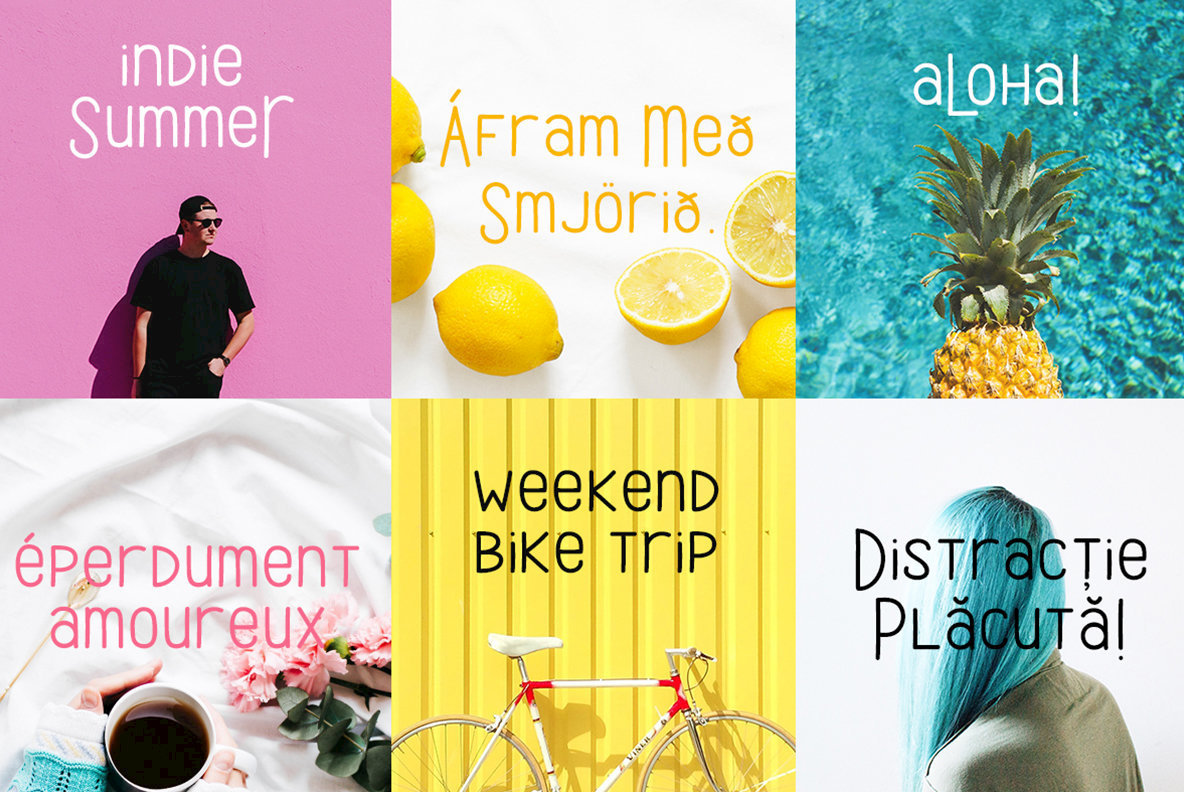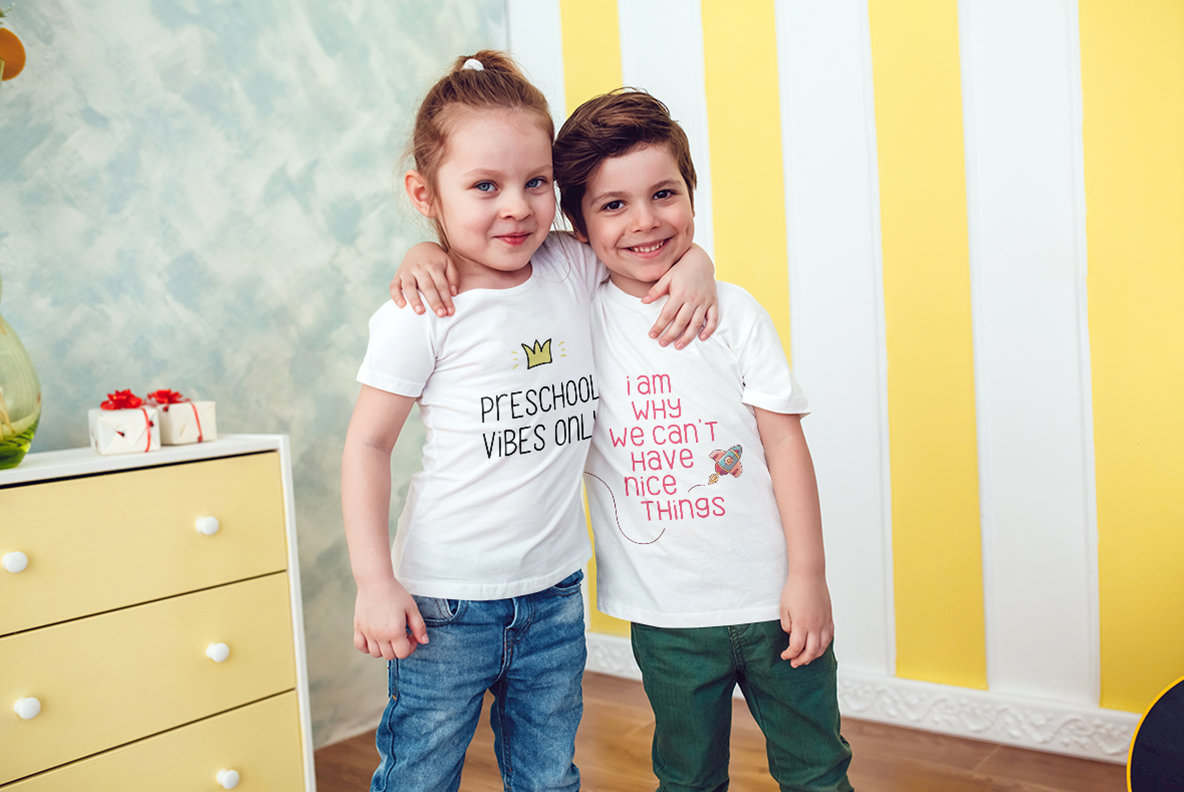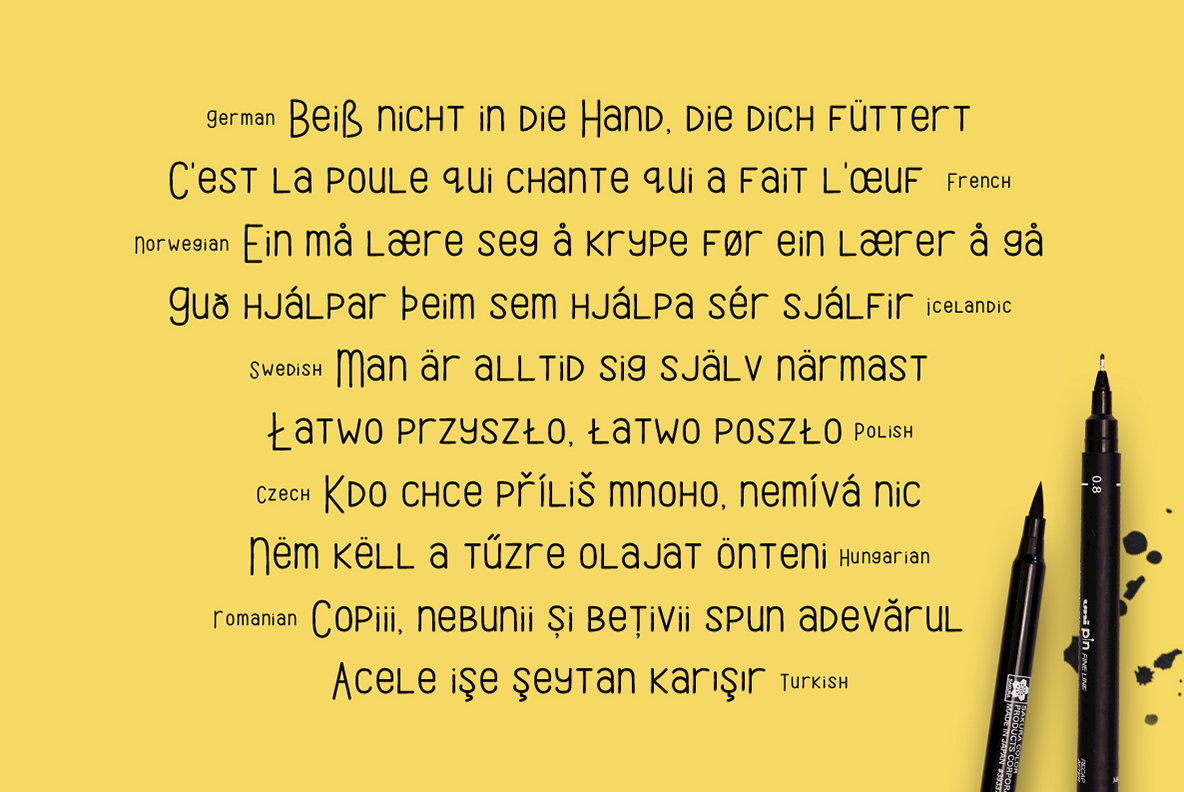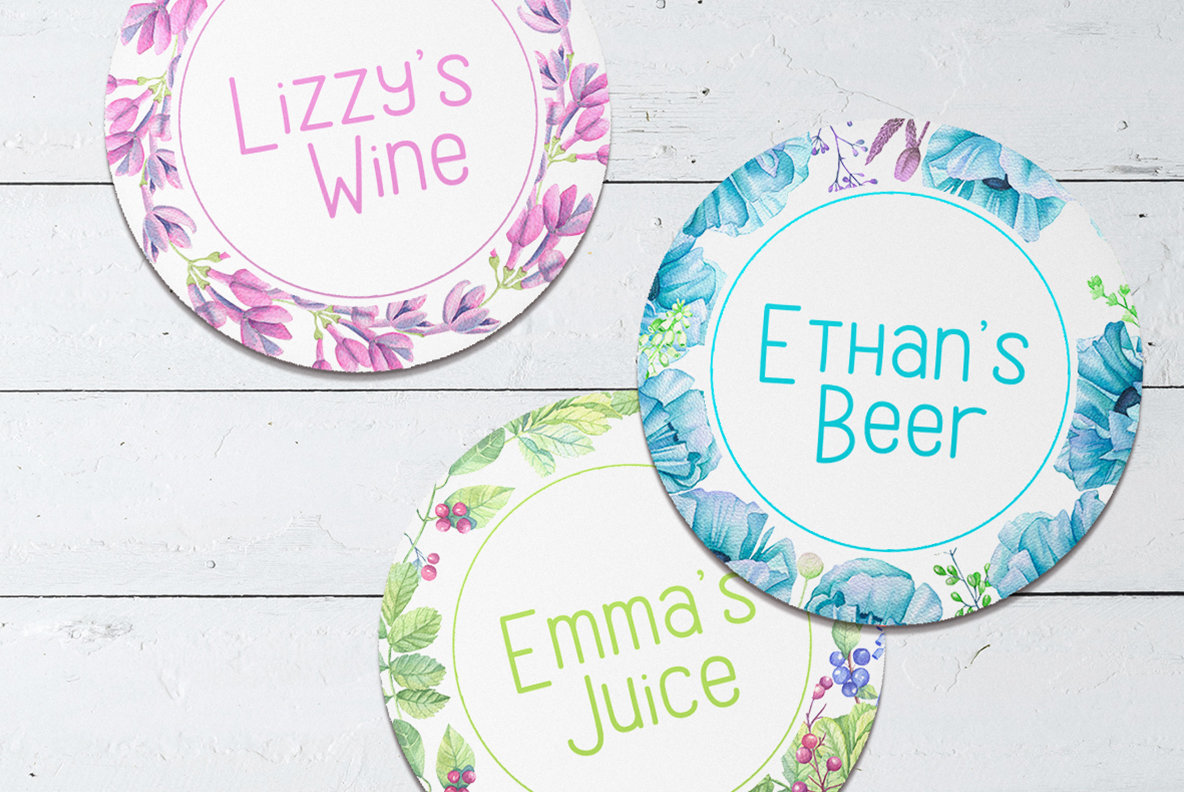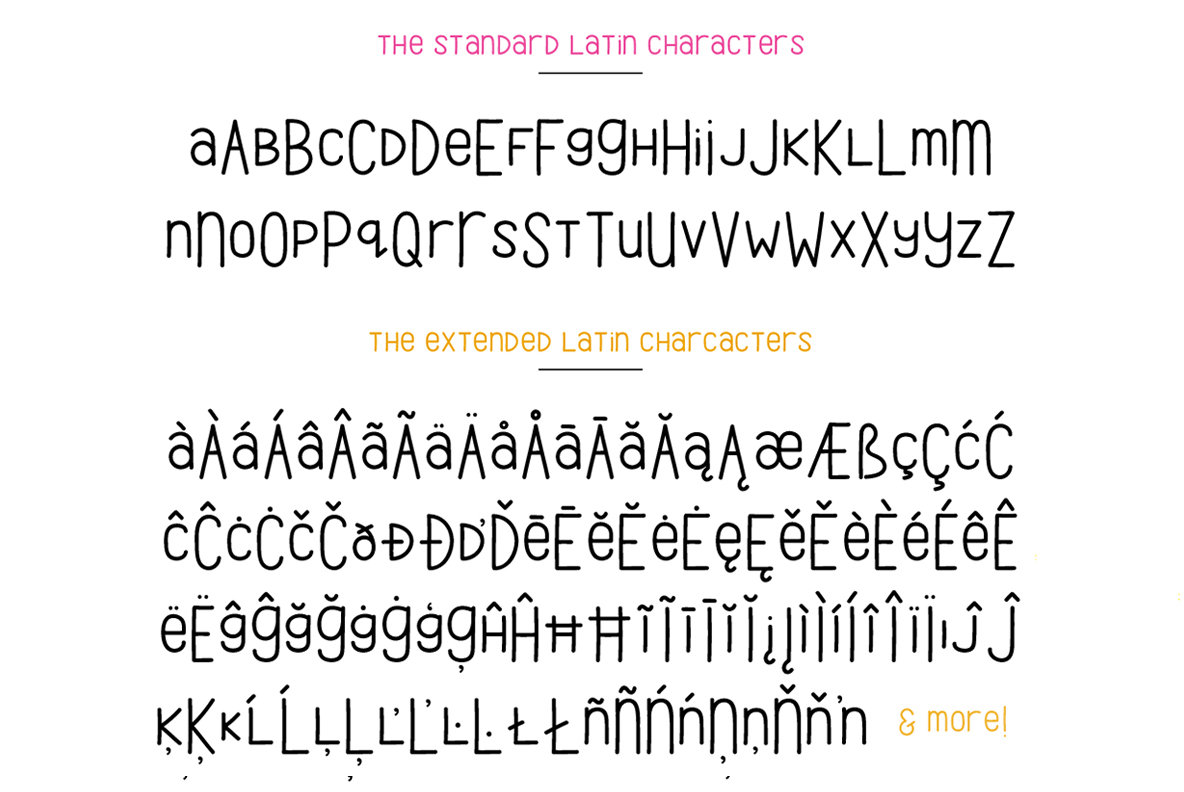
Maely Font
Maely
Maely is an adorable, playful typeface with a monoline style. Its simplicity & versatility is perfect for any creative projects, be it a logo, quote, blog header, invitation, branding, t-shirts, posters & etc! Contains standard characters, lowercase, uppercase, numbers, punctuation & extended latin characters.